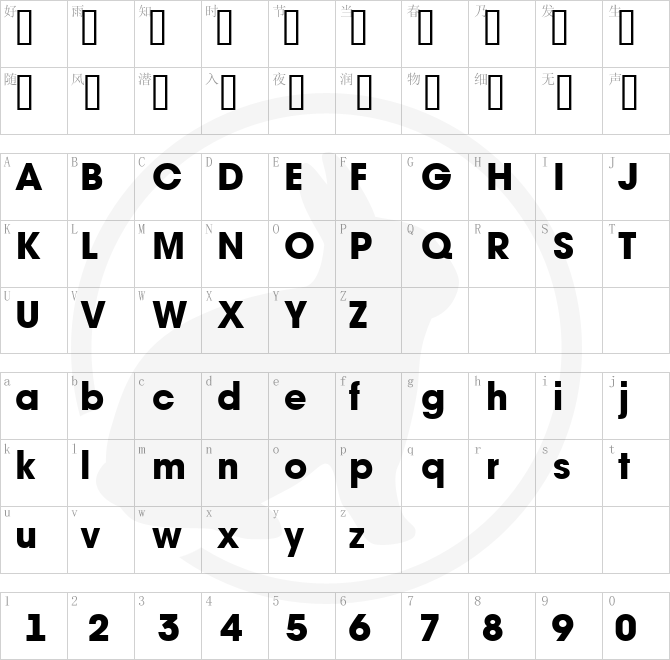
• Font Name:a_AvanteTck
• Subfamily:Heavy
• Full Name:a_AvanteTck Heavy
• Weight:900
a_AvanteTck-Heavy.ttf is a very beautiful artistic font, a_AvanteTck-Heavy.ttf is widely used in the design and printing of various books and pictures,a_AvanteTck-Heavy.ttf has a strong visual impact,a_AvanteTck-Heavy.ttf is a commonly used font in newspapers, magazines and books, and is used in posters, e-commerce Poster design, store design, logo design, font design and other fields.a_AvanteTck-Heavy.